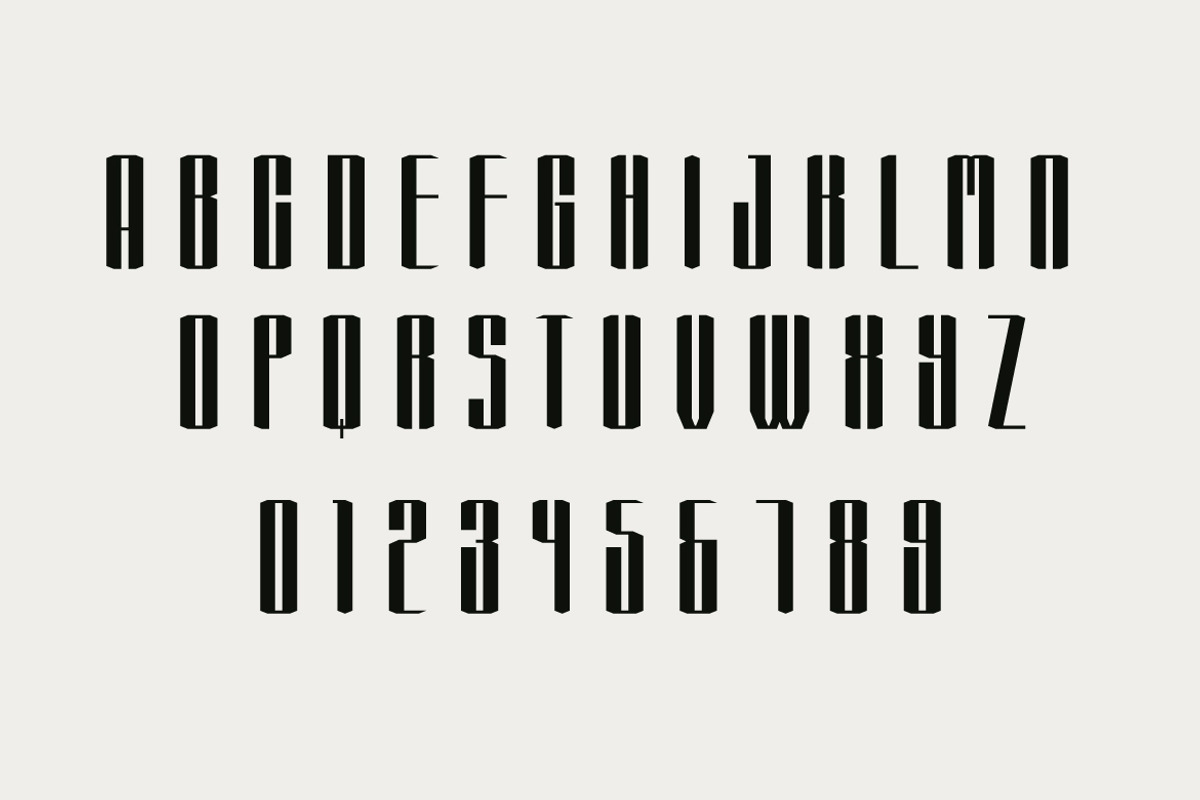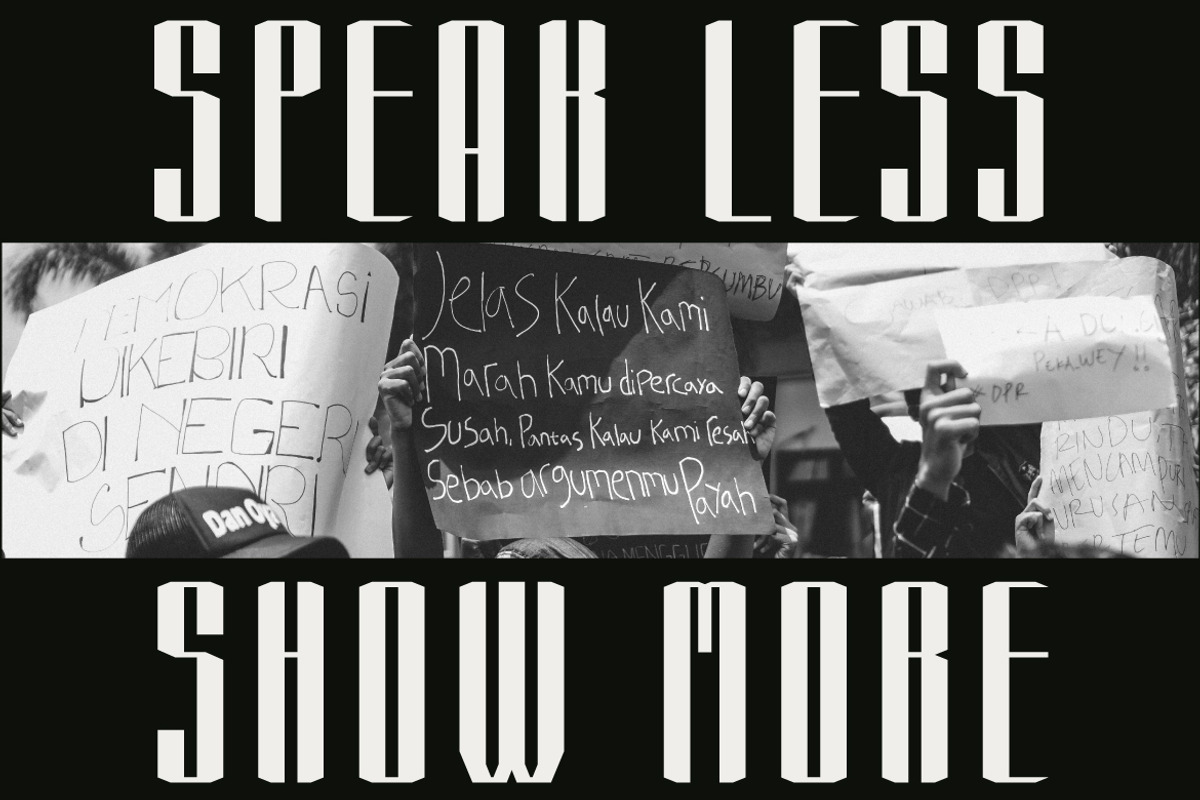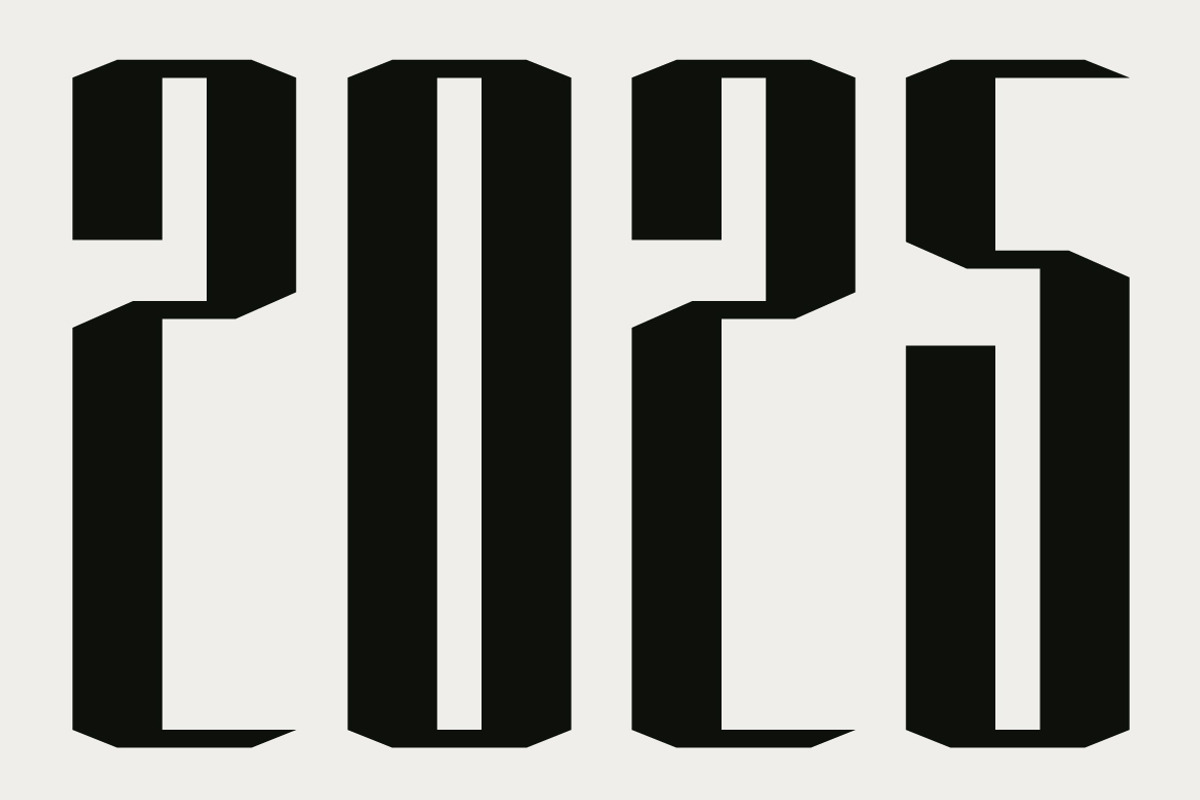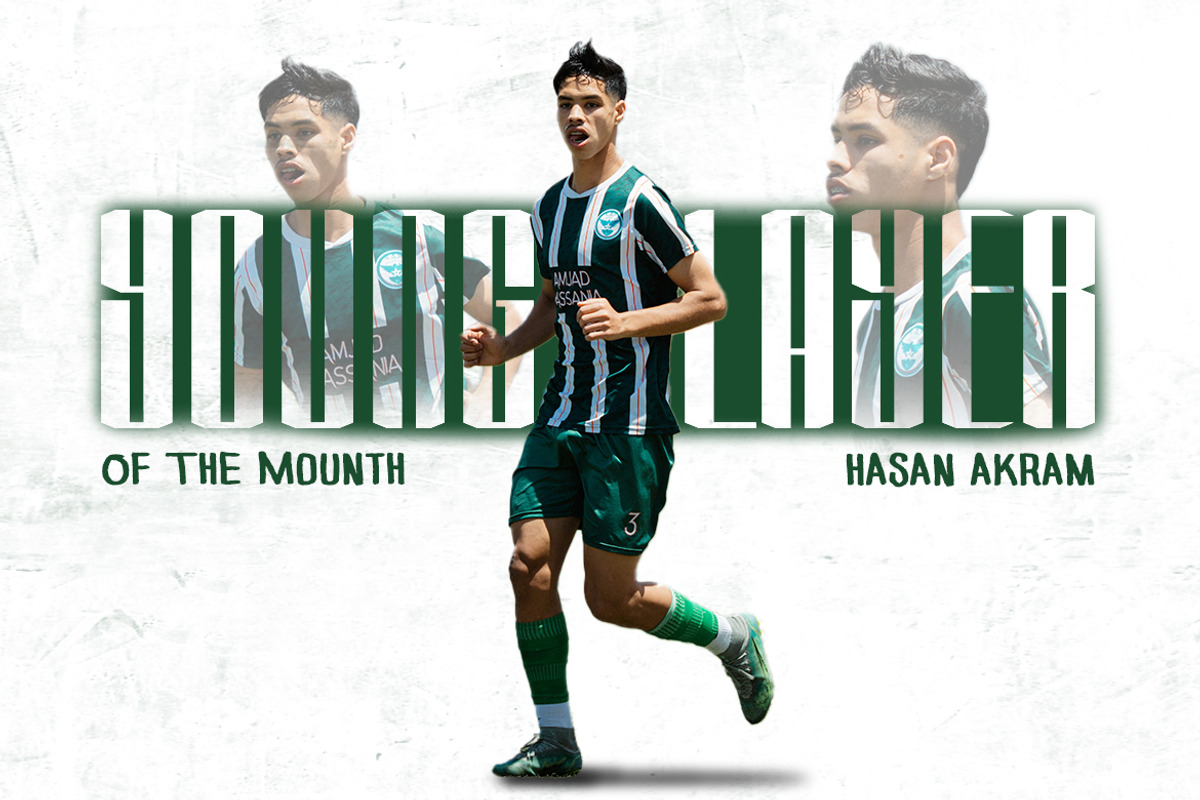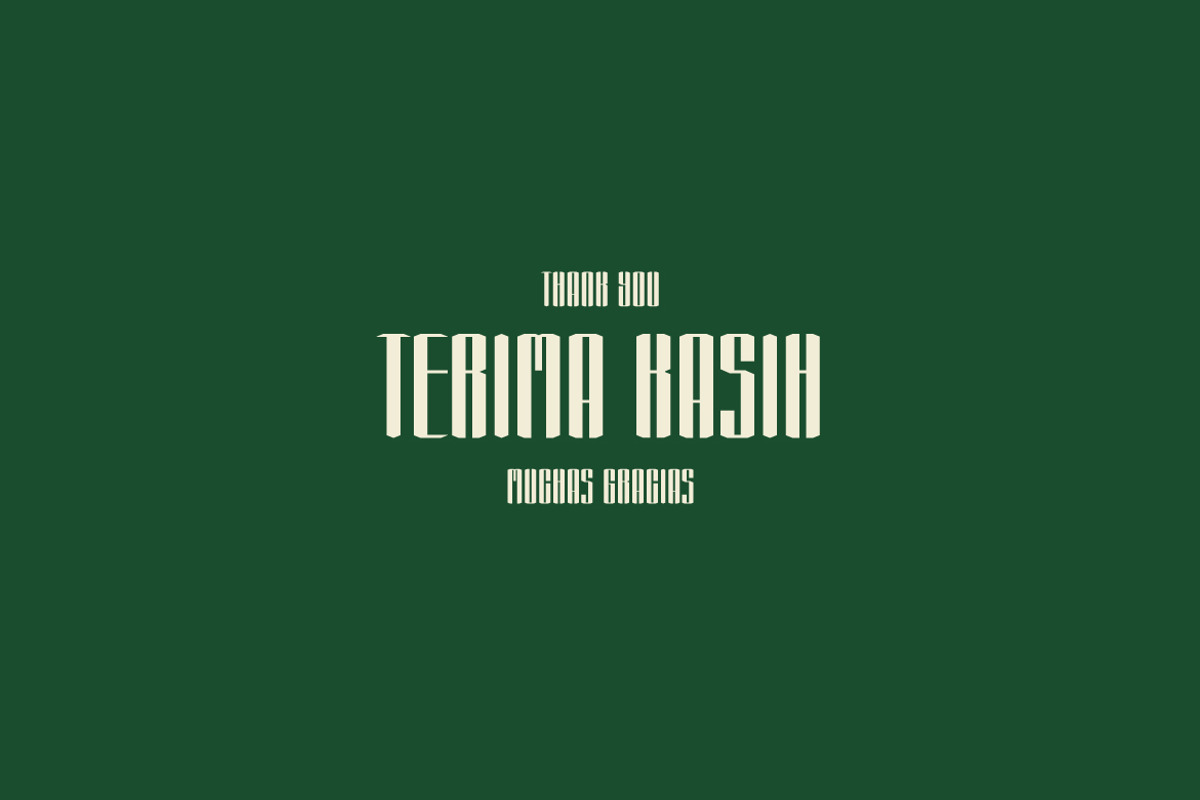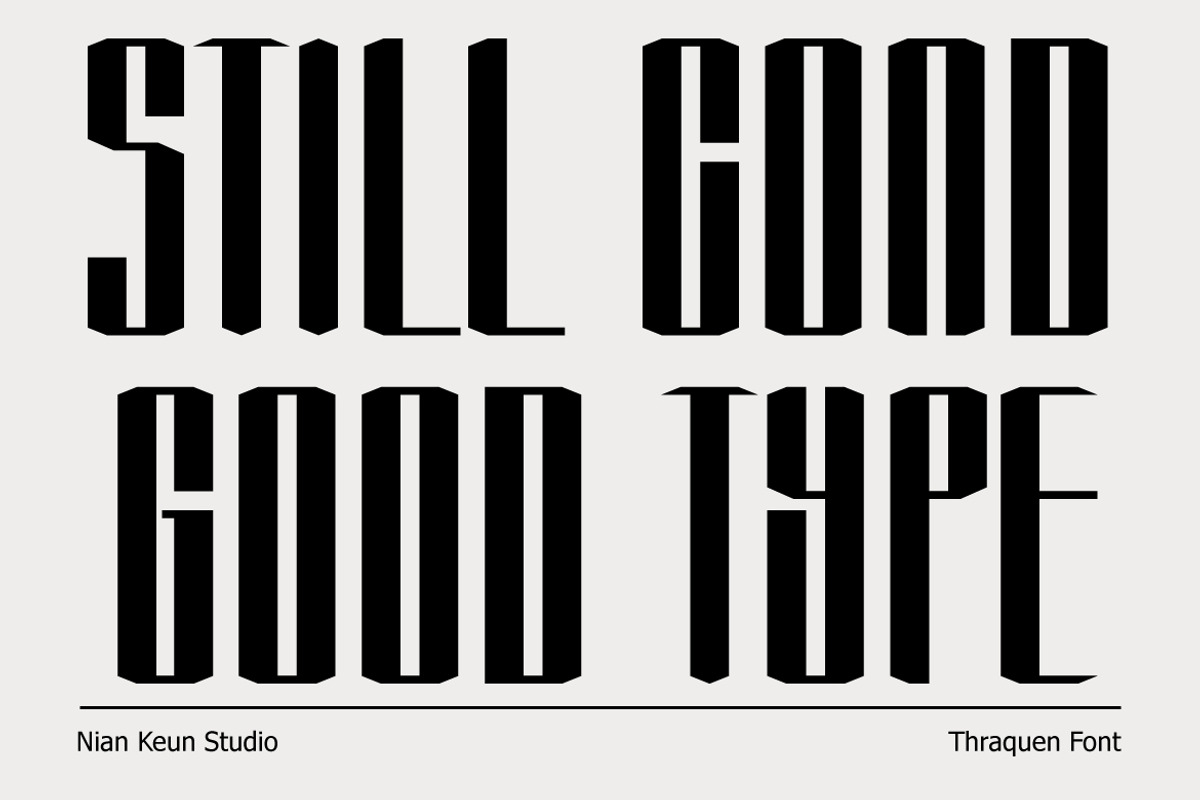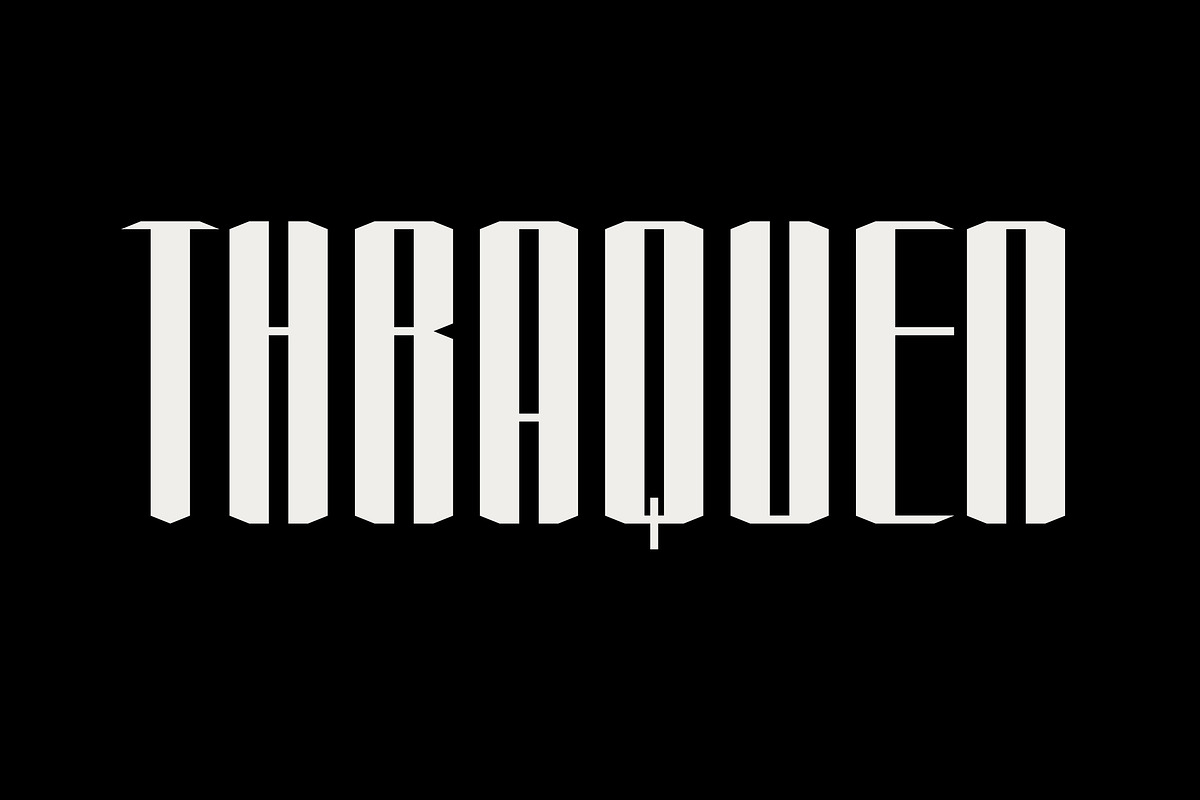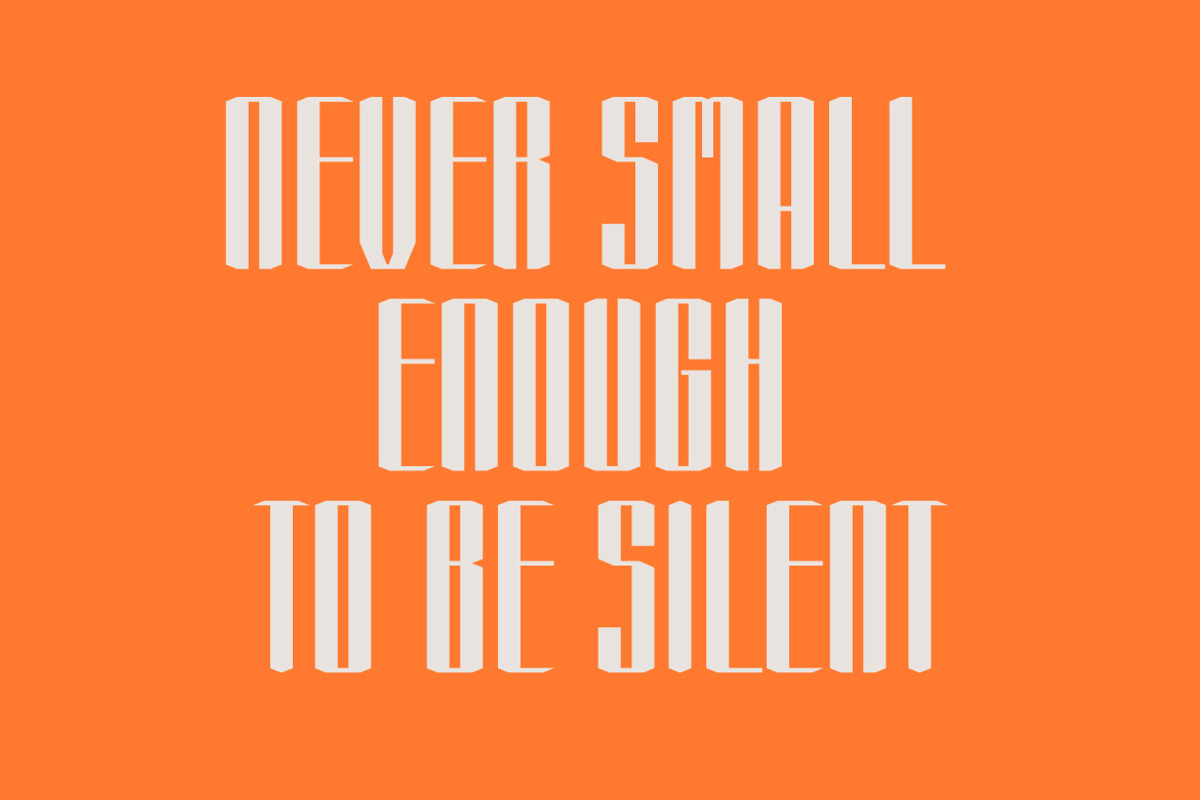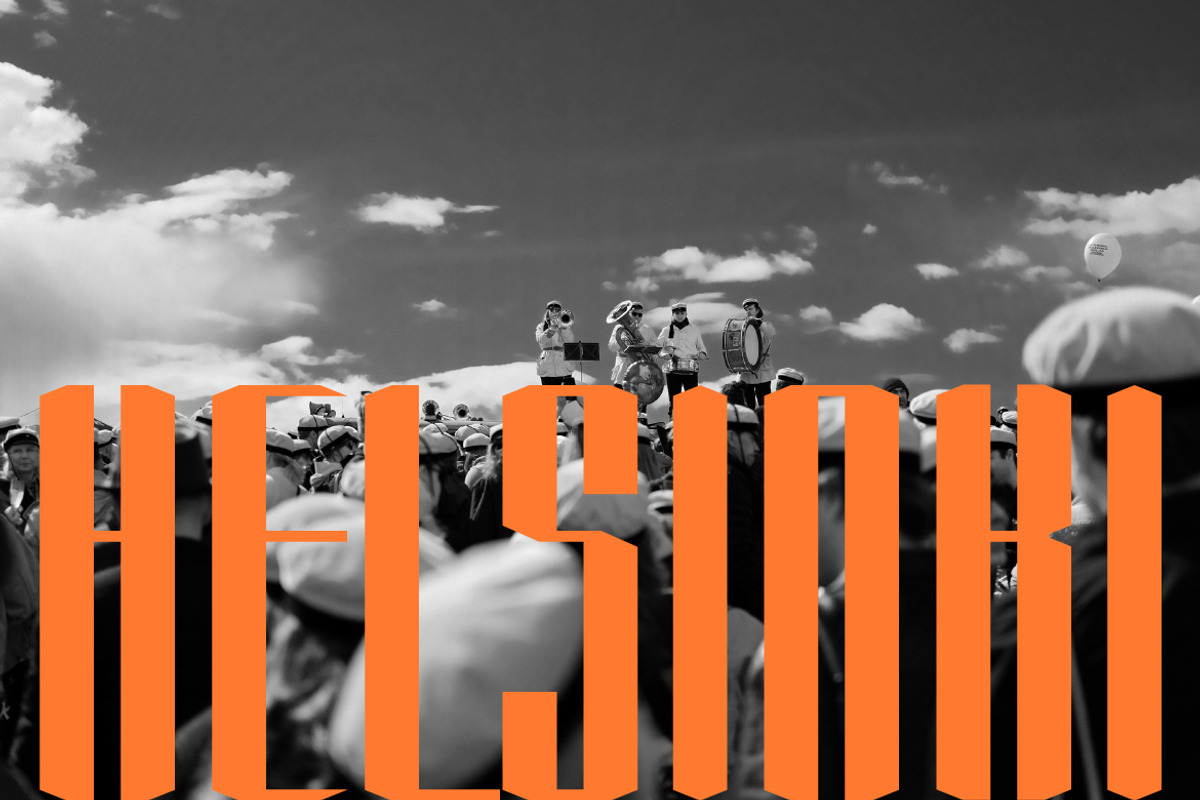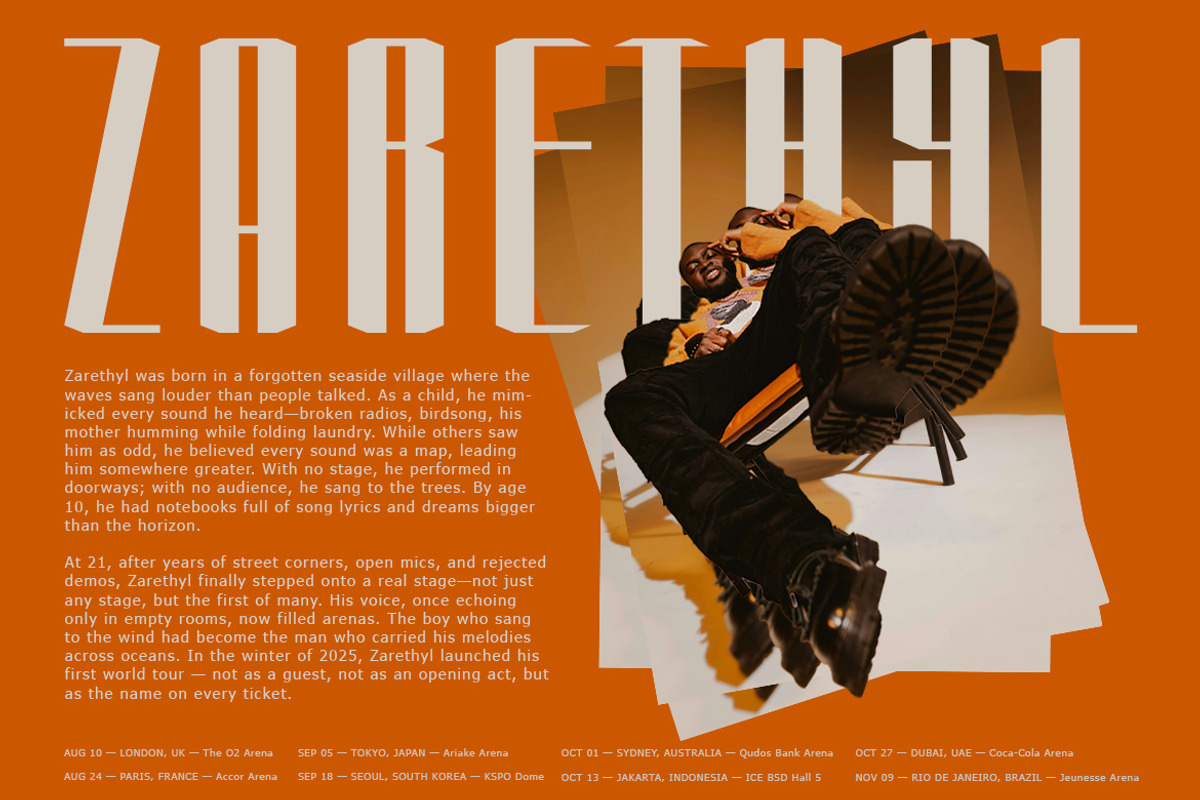
Thraquen – Condensed Display
Thraquen is a regular futuristic condensed display font designed to make an impact where space is limited but style is non-negotiable. Its tall, narrow letterforms are built for posters, editorials, branding, and headlines that demand attention with minimal width.
Crafted with precision and architectural finesse, Thraquen walks the line between modern tech aesthetics and brutalist graphic sensibilities. Ideal for sci-fi titles, album artwork, cutting-edge fashion branding, or even glitch-heavy interfaces, this font offers powerful presence without sacrificing clarity.
- All caps / uppercase only
Tall, tight spacing
Geometric construction
Modern and futuristic feel
Strong vertical rhythm
Poster design
Music covers & festival branding
Techno & sci-fi themes
Web headers and hero text
Zine layouts and urban fashion campaigns